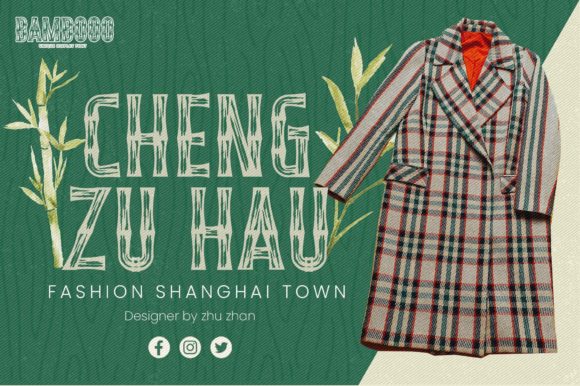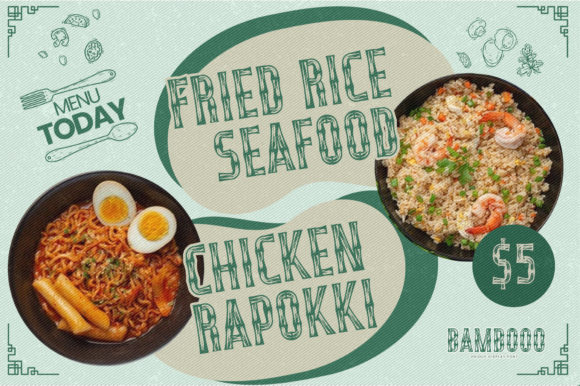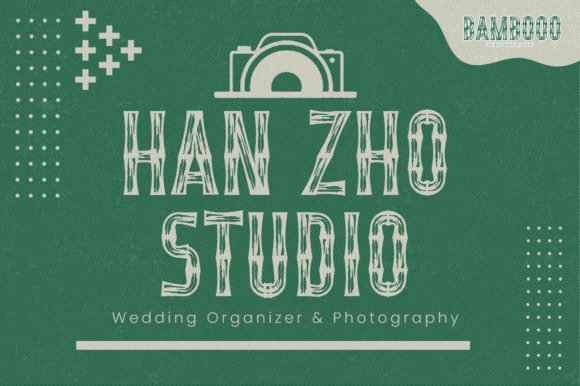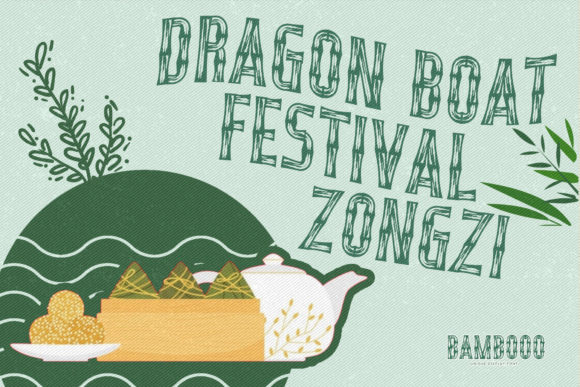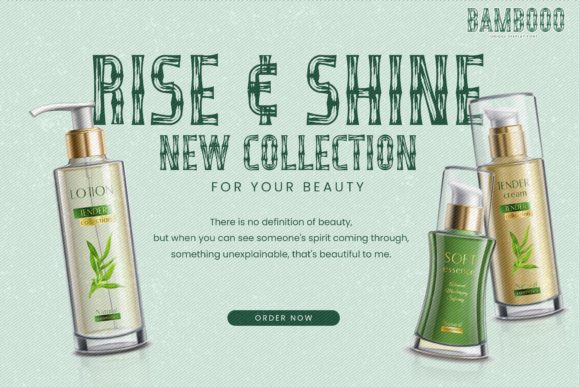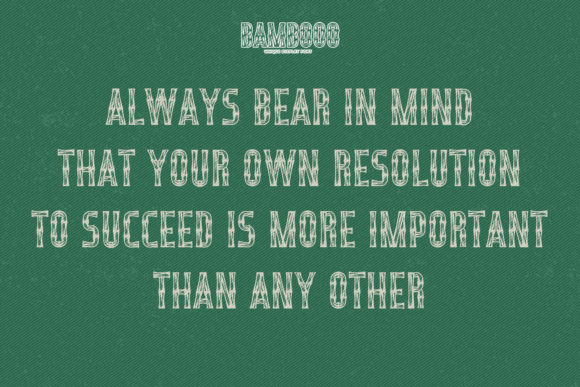
Have you ever stared at a blank page, waiting for inspiration to strike? You know, that moment when everything seems to be waiting for the perfect font to bring your idea to life. For designers and creatives, finding the right font can be a challenge, but what if we told you that the solution is right in front of you?
Introducing the Bambooo Font, a modern and unique display font that’s sure to capture everyone’s attention. Its casual style makes it a great choice for a wide range of creative projects, from logos and printed quotes to invitations, cards, and product packaging. With the Bambooo Font, you’ll be able to add a touch of personality to your designs and make them truly stand out.
Bambooo Font Key Features
- Font Family: Bambooo is a sans-serif font family with a unique, modern design.
- Unique Characteristics: Features a distinctive, rounded design with subtle nuances in letterforms, making it perfect for branding and packaging design.
Bambooo Font Review
As a designer, I’ve had the chance to experiment with the Bambooo Font, and I must say it’s a unique and interesting addition to any project. ✨
- Playful and modern feel: The Bambooo Font has a distinct, hand-drawn quality that gives it a modern and playful touch.
- Great for creative projects: The font’s quirky nature makes it perfect for creative projects, like posters, flyers, and social media graphics.
- Good legibility: Despite its unique style, the Bambooo Font is still easy to read, making it a great choice for body text.
- May not be suitable for formal projects: The Bambooo Font’s playful nature may not be suitable for formal or professional projects, like resumes or business reports.
- Limited font styles: The Bambooo Font is available in a limited number of styles, which may not be enough for designers who need a range of options.
- Not ideal for small text: The font’s unique style may make it difficult to read in small text sizes.
The Bambooo Font is a fun and creative addition to any project. While it may not be suitable for all types of projects, it’s a great choice for designers who want to add a modern and playful touch to their work. With its good legibility and unique style, the Bambooo Font is definitely worth checking out. ⚠️
The Bambooo Font is ideal for:
- Health and wellness branding
- Sustainable living marketing
- Environmental awareness campaigns
Remember to use the Bambooo Font in a way that complements your brand